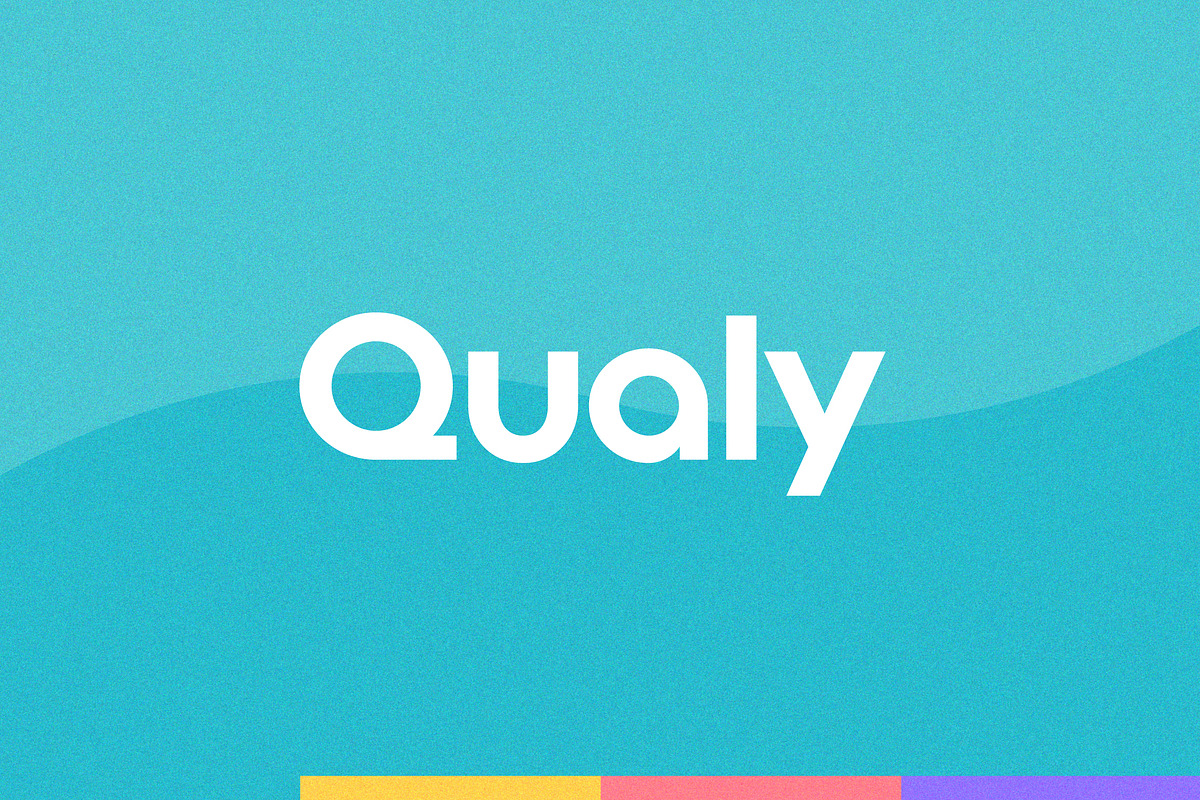
Step into the world of powerful branding with the Qauly Logo Font Collection — a meticulously crafted font suite engineered for designers, startups, agencies, and businesses that demand instant recognition and lasting impact. More than just typography, Qauly is a design philosophy: clean, confident, and built to elevate your brand from ordinary to extraordinary.
The Powerhouse: Qualy — The Bestselling Logo Font Since 2018
At the heart of the collection is Qualy, the global bestseller that has defined modern logo design since its launch in 2018. Trusted by industry leaders from parsd.com to boutique studios worldwide, Qualy combines geometric precision with subtle human warmth — a rare balance that feels both professional and approachable.
Whether you’re designing a tech startup tagline, a luxury apparel brand, or a creative agency identity, Qualy delivers crisp clarity at any scale: from app icons to billboards, from print brochures to social media banners.
Designed for Identity — Not Just Letters
Each font in the Qauly collection is conceptually distinct, yet harmoniously related — acting as a cohesive family of visual voices. Some lean toward strength and structure, others embrace subtle curves and expressive rhythm. But all share one goal: to make your brand instantly memorable.
Unlike generic fonts with limited variation, Qauly provides multiple weight options — from light to extra-bold — allowing you to define hierarchy, emotion, and tone without switching typefaces. Use a heavier weight for impact. A lighter variant for elegance. The design flexibility is yours to command.
Unmatched Multilingual Reach: 134+ Languages Supported
Global reach starts with language. The Qauly Logo Font Collection is fully equipped to support over 134 languages, including:
- Cyrillic (Russian, Ukrainian, Bulgarian, etc.)
- Greek
- Latin Extended (with diacritics for Central and Eastern European languages)
- Vietnamese (with complex tone marks)
No more compromises. No more placeholder text. Whether you’re building a brand for European markets, Southeast Asia, or Eastern Europe, Qauly ensures every character looks professional and accurate — no matter how rare the letter.
Perfect for International Branding, Local Impact
This isn’t just about glyphs. It’s about cultural resonance. With full multilingual support, you can:
- Launch consistent branding across markets.
- Create localized versions of your logo without visual or technical conflict.
- Ensure your message is not only heard — but read correctly.
Why Qauly? Because Identity Matters
Great brands don’t happen by accident. They’re built with intention — and typography is at the core of that intention.
Qauly doesn’t just write your name. It defines your brand’s presence.
- Is your brand bold? Use the bold weights.
- Is your brand minimal? Use the light or thin variants.
- Is your brand creative? Mix and match weights for dynamic contrast.
Every decision you make with Qauly shapes perception — and perception is everything.
Build Confidence. Build Legacy.
Choose Qauly not just for its proven track record — but for its future-proof potential. A font that sells well, performs flawlessly, and supports global audiences is a strategic asset.